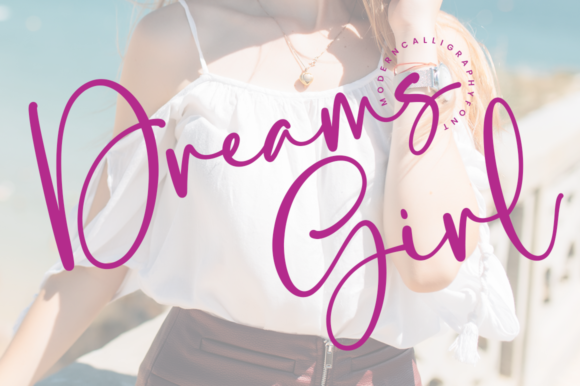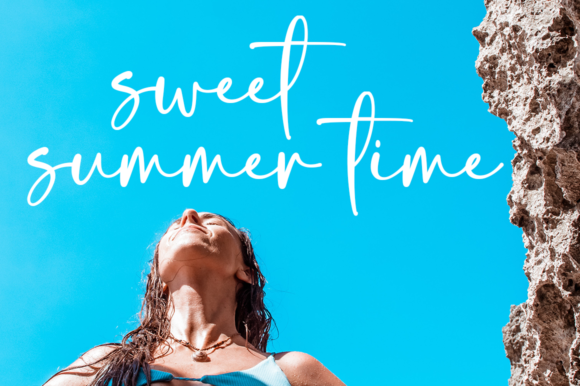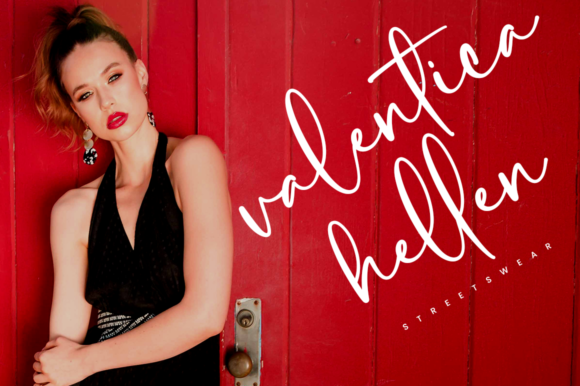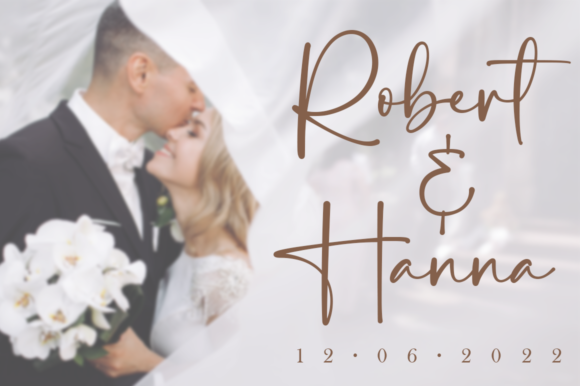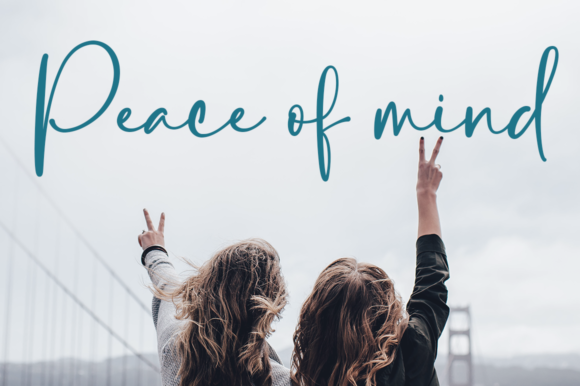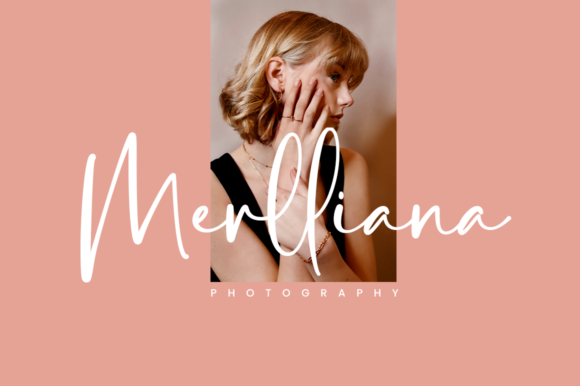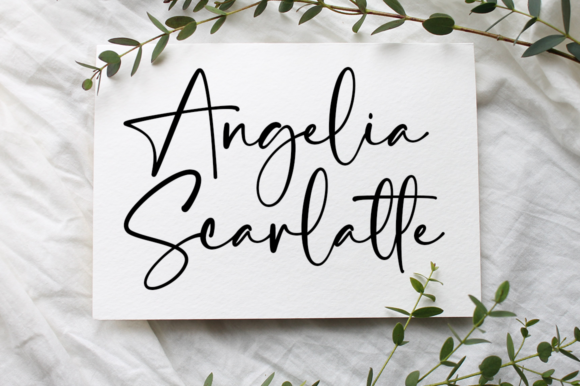
Where Creativity Meets Whimsy
Have you ever been scribbling in your journal, trying to capture the essence of a brilliant idea, and suddenly your pen starts dancing across the page? The lines blur, the letters curve, and before you know it, your handwritten script has become a masterpiece. That’s the magic of creating with a personal touch, and that’s exactly what the Dreams Girl Font is all about.
Designed to evoke the feeling of a handwritten note, the Dreams Girl Font is a timeless and lovely choice for logos, branding, and quotes that need a touch of warmth and personality. With its PUA encoding, designers can access all the glyphs and swashes with ease, making it a valuable addition to any creative toolkit.
Dreams Girl Font Key Features
- Size: The font family includes 6 styles, ranging from 100 to 900, with each style offering a unique and customizable experience.
- Resolution: Designed to be scalable, Dreams Girl Font is suitable for use at high resolutions, making it ideal for digital and print applications.
- Unique Characteristics: This font features a mix of modern and vintage elements, with a strong focus on femininity and elegance, making it perfect for designs targeting a female audience.
- Language Support: Dreams Girl Font supports a wide range of languages, including Latin, Cyrillic, and Greek scripts.
Dreams Girl Font Review
At first glance, the Dreams Girl Font is a visually appealing choice for feminine designs. ✨ The font’s curves and flourishes evoke a sense of elegance and sophistication, making it perfect for brands targeting a female audience.
- ✨ Unique and feminine design: The Dreams Girl Font stands out from more generic sans-serif fonts with its distinctive curves and flourishes.
- ✨ High legibility: The font is easy to read, even at smaller font sizes, making it suitable for body text and headings.
- ✨ Versatility: The Dreams Girl Font can be used for a wide range of applications, from branding and marketing materials to digital products and websites.
- ⚠️ Limited font weights: The Dreams Girl Font is only available in a few font weights, which may limit its use in certain applications where more font weights are required.
- ⚠️ Not ideal for bold or dramatic text: The font’s delicate design may not be suitable for bold or dramatic text, where a more robust font would be more effective.
Overall, the Dreams Girl Font is a beautiful choice for feminine designs, but its limitations should be considered when choosing a font for a project.
To get the most out of the Dreams Girl Font, try experimenting with different font sizes, styles, and colors. You can also use the font in combination with other design elements to create a unique and eye-catching visual identity.
The Dreams Girl Font is perfect for creative projects that require a playful and whimsical touch. Some common use cases include:
– Blog posts and articles
– Product packaging and branding